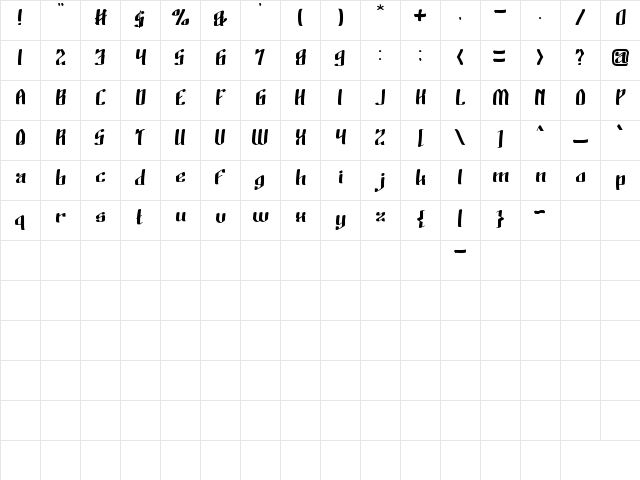
Wino Sutarmin Kadir Regular
Design Context for Wino Sutarmin Kadir
Wino Sutarmin Kadir is a composed and adaptable typeface that performs quietly and consistently across a wide range of design contexts.
Who designed the Wino Sutarmin Kadir Regular font?